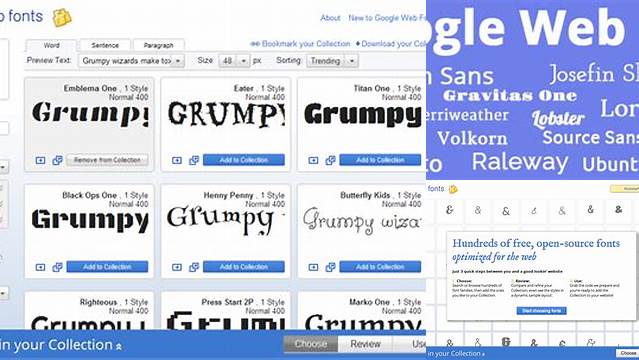
Google Web Fonts: Your Open Source Typography Guide
Google Web Fonts: Your Guide to Open Source Typography
Hey guys, let's dive into the awesome world of Google Web Fonts, an open-source library that's completely changing how we think about web typography. We'll explore why this library is a game-changer, how to use it, and the cool benefits it brings to your websites. So, buckle up, and let's get started!
What Exactly are Google Web Fonts?
Okay, so what's the deal with Google Web Fonts? Basically, it's a massive collection of fonts that are freely available for use on your websites. That's right, free. This library is hosted by Google and is designed to make it super easy for anyone to use high-quality fonts without having to worry about licensing fees or complex installations. Think of it as a giant candy store for web designers and developers, packed with different font styles, weights, and designs to spice up your projects. The library is open source, which means the fonts are available for commercial and personal use, allowing you to create any project without worrying about copyright issues.
The primary goal of Google Web Fonts is to improve the readability and visual appeal of websites across the web. Before this library, web designers were limited to a handful of fonts that were universally installed on most computers, leading to a somewhat bland and uniform web experience. Google Web Fonts breaks down those barriers, offering a wide array of fonts that can be easily embedded into your website, ensuring that visitors see your site exactly as you intended, regardless of their operating system or browser. The library's accessibility also makes it possible for designers with limited resources to use high-quality fonts and create professional-looking websites. Furthermore, Google Web Fonts supports multiple languages, which is essential for web designers looking to reach a global audience. The fonts are optimized for web performance, which means they load quickly and don't slow down your website. This is super important because a slow website can lead to a poor user experience and even negatively affect your search engine rankings. The user-friendly interface allows you to browse, preview, and select fonts based on their style, language support, and popularity. You can filter fonts by different categories like serif, sans-serif, display, handwriting, and monospace to find exactly what you need. You'll also be able to find pairings to create a visually cohesive website design. Google's commitment to providing quality fonts and improving web typography has made it a vital resource for designers and developers worldwide.
Why Use Google Web Fonts? The Perks!
Alright, let's talk about why you should be using Google Web Fonts for your projects. First off, it's incredibly easy to use. No complicated downloads or installations are needed. You simply select the fonts you want and embed a little bit of code into your website's HTML. Boom! You're done. This simplicity is a huge win, especially if you're not a coding wizard.
But it's not just about ease of use; the advantages go way beyond that. The most obvious benefit is the sheer variety of fonts available. Google offers a vast selection, from classic serif fonts like 'Times New Roman' to modern sans-serif fonts such as 'Open Sans', and even quirky display fonts that add a unique touch to your designs. The diversity ensures that you can find the perfect font to match the style and personality of your website or project. Another huge plus is the improved website performance. Google Web Fonts are hosted on Google's servers, which are optimized for speed and efficiency. This means that the fonts load quickly, enhancing the user experience and preventing slow load times that can frustrate visitors. Fast-loading websites also tend to rank higher in search engine results, which is a massive benefit for your SEO. Compatibility is another critical point. The fonts are designed to work flawlessly across all major browsers and devices, so your website will look consistent, whether someone is viewing it on a desktop computer, a tablet, or a smartphone. Accessibility is also a top priority. Google Web Fonts provides tools and documentation to help you choose fonts that are easy to read, improving the experience for users with visual impairments. By using these fonts, you contribute to a more inclusive web environment. Additionally, Google Web Fonts is continuously updated with new fonts and improved features. This ensures that you always have access to the latest styles and optimizations. Finally, using this open-source library helps you save money. Many high-quality fonts come with hefty licensing fees, but Google Web Fonts offers all of its fonts for free, which is great for startups, small businesses, and anyone on a budget. By embracing Google Web Fonts, you're not just choosing fonts; you're choosing a better web experience for your users and a more efficient, accessible, and visually appealing website for yourself.
property and specify the name of the font. For example, if you've chosen 'Roboto', you would write font-family: 'Roboto', sans-serif;
in your CSS. Remember to also specify a fallback font (e.g., 'sans-serif') to ensure that your website displays correctly if, for any reason, the primary font doesn't load. Remember to test your website on different devices and browsers to ensure that the fonts are displayed as expected. You may need to adjust the font size, line height, or letter spacing to optimize the readability of your website. Be mindful of performance and choose only the font weights and styles you need. Avoid downloading too many fonts, as it can slow down your website. By following these steps, you can easily integrate Google Web Fonts and enhance the appearance and readability of your website. Enjoy the process and create some awesome web designs!
Tips and Tricks for Using Google Web Fonts
Now, let's get into some pro tips and tricks to help you get the most out of Google Web Fonts. First off, always consider the readability of your chosen fonts. Select fonts that are easy on the eyes, especially for body text, where users will spend the most time reading. Avoid overly decorative or stylized fonts for large blocks of text; they can be hard to read and tire your users. Consider the font's weight and size, and make sure it's comfortable to read on different screen sizes.
Another important tip is to pair fonts thoughtfully. When you're using more than one font on your website, choose fonts that complement each other. A good practice is to pair a serif font for headings with a sans-serif font for body text. Alternatively, you can use different weights and styles of the same font family for a cohesive look. Keep the number of fonts to a minimum. Using too many fonts can make your website look cluttered and unprofessional. Stick to a maximum of two or three fonts to maintain a clean and organized design. Pay attention to font performance. Although Google Web Fonts are optimized for web use, you can still impact your website's loading speed by carefully selecting font weights and styles. Only load the font weights you actually need. Avoid loading unnecessary variations, as this can slow down your website. Additionally, consider preloading fonts to ensure they load before the rest of your content. This will help to prevent the 'flash of unstyled text' (FOUT) issue, where the text appears in a default font before your chosen font loads. Always test your website across different devices and browsers. Make sure your fonts look consistent and legible on various screens. Test on mobile devices, tablets, and desktops. Use different browsers to check for compatibility issues. Use Google's Font Preview tool to see how your chosen fonts will look on your website. You can enter your text and see it in different sizes and weights. Experiment with different font sizes, line heights, and letter spacing to optimize readability and visual appeal. Don't be afraid to experiment with different font styles and designs to find the perfect fit for your project. Ultimately, the best font is one that enhances the user experience and reflects your brand's personality. By implementing these tips and tricks, you can use Google Web Fonts effectively and create visually appealing and high-performing websites.
Conclusion: Embrace the World of Open Source Fonts!
So, there you have it, guys! Google Web Fonts is a fantastic resource for web designers, offering a vast library of free, open-source fonts that can transform the look and feel of your websites. From ease of use and improved performance to enhanced accessibility and a wide variety of choices, this platform has got you covered. By leveraging these tips and tricks, you can confidently integrate these fonts and create web experiences that are both beautiful and functional. Don't hesitate to jump in, explore the available fonts, and experiment with your designs. Happy designing, and have fun making your websites look amazing!